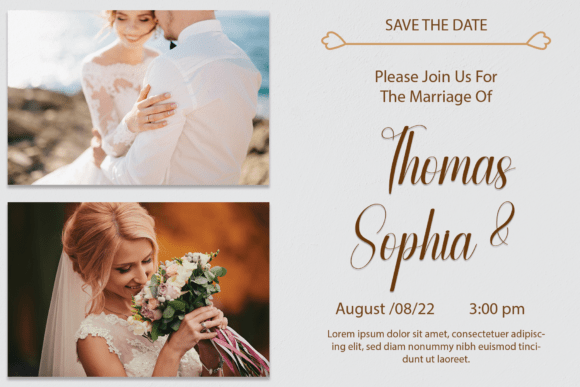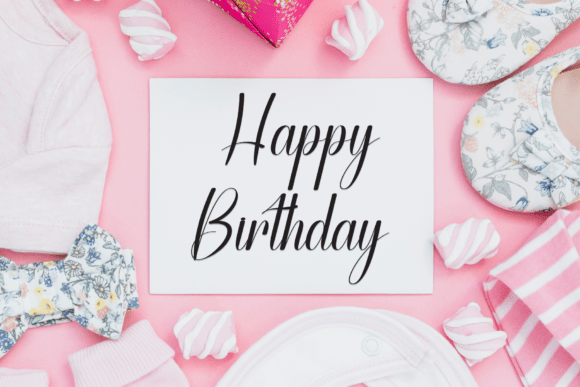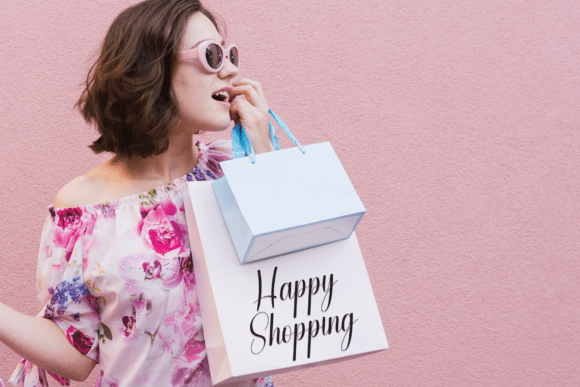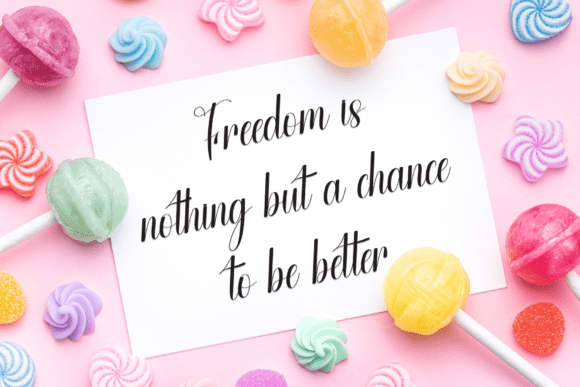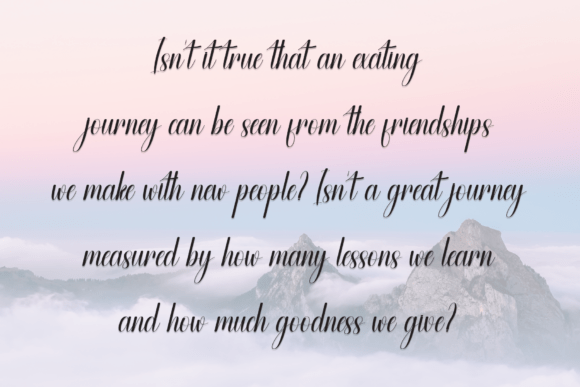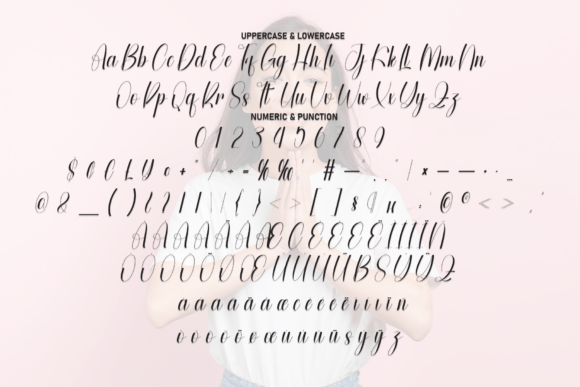
Gretting Font: Elevate Your Designs with Elegance and Sophistication
In the world of typography, few fonts capture the essence of elegance and fluidity as beautifully as Gretting. This stunning handwritten script font is designed to convey a warm, welcoming personality, making it perfect for a variety of creative projects. Whether you’re a designer, crafter, or simply someone who appreciates the art of beautiful writing, Gretting is sure to impress.
The Beauty of Gretting
Gretting is labeled as a beautiful font, and for good reason. Its traditional slanted axis and high-contrast visual rhythm between its thick, grounded downstrokes and delicate, wispy connectors create a sense of fluid motion and sophistication. The result is a font that exudes elegance and refinement, perfect for projects that require a touch of luxury and poise.
Perfect for Personalized Projects
One of the standout features of Gretting is its suitability for personalized greeting cards. The font’s warm and welcoming personality makes it ideal for creating heartfelt, handwritten-style messages that feel truly special. Whether you’re designing cards for birthdays, weddings, or holidays, Gretting is sure to add a touch of elegance and sophistication to your creations.
Boutique Brand Identities
Gretting is also an excellent choice for boutique brand identities. The font’s unique blend of traditional and modern elements creates a distinctive look that is both stylish and memorable. Whether you’re designing a logo, packaging, or marketing materials, Gretting can help you establish a strong brand identity that sets you apart from the competition.
Upscale Beauty Editorial Titles
In the world of beauty and fashion, typography plays a crucial role in creating a luxurious and high-end feel. Gretting is perfectly suited for upscale beauty editorial titles, adding a touch of sophistication and glamour to any publication. Whether you’re designing a magazine cover, editorial spread, or advertising campaign, Gretting is sure to elevate your designs and leave a lasting impression.
Romantic Wedding Stationery
For couples looking for a font that captures the romance and elegance of their special day, Gretting is an excellent choice. The font’s fluid, handwritten style creates a sense of intimacy and warmth, making it perfect for wedding stationery, invitations, and other wedding-related designs.
Key Features of Gretting
- Elegant and fluid handwritten script font: Gretting features a beautiful, flowing script style that adds a touch of sophistication to any design.
- Traditional slanted axis: The font’s traditional slanted axis creates a sense of movement and fluidity, adding to its elegance and refinement.
- High-contrast visual rhythm: The contrast between Gretting’s thick, grounded downstrokes and delicate, wispy connectors creates a visually appealing rhythm that draws the eye.
- Warm and welcoming personality: Gretting’s unique personality makes it perfect for projects that require a personal touch.
Tips for Using Gretting
To get the most out of Gretting, here are a few tips to keep in mind:
- Use it sparingly: Gretting is a statement font, so use it sparingly to add emphasis and create visual interest.
- Experiment with colors: Gretting looks stunning in a variety of colors, so don’t be afraid to experiment and find the perfect hue for your design.
- Pair it with complementary fonts: Gretting pairs beautifully with clean, sans-serif fonts, so consider pairing it with a font like Arial or Helvetica for added contrast.
Gretting is a truly exceptional font that offers a unique blend of elegance, sophistication, and warmth. Whether you’re a designer, crafter, or simply someone who appreciates beautiful typography, Gretting is sure to inspire and elevate your designs. With its fluid handwritten style, traditional slanted axis, and high-contrast visual rhythm, Gretting is the perfect choice for personalized greeting cards, boutique brand identities, upscale beauty editorial titles, and romantic wedding stationery.